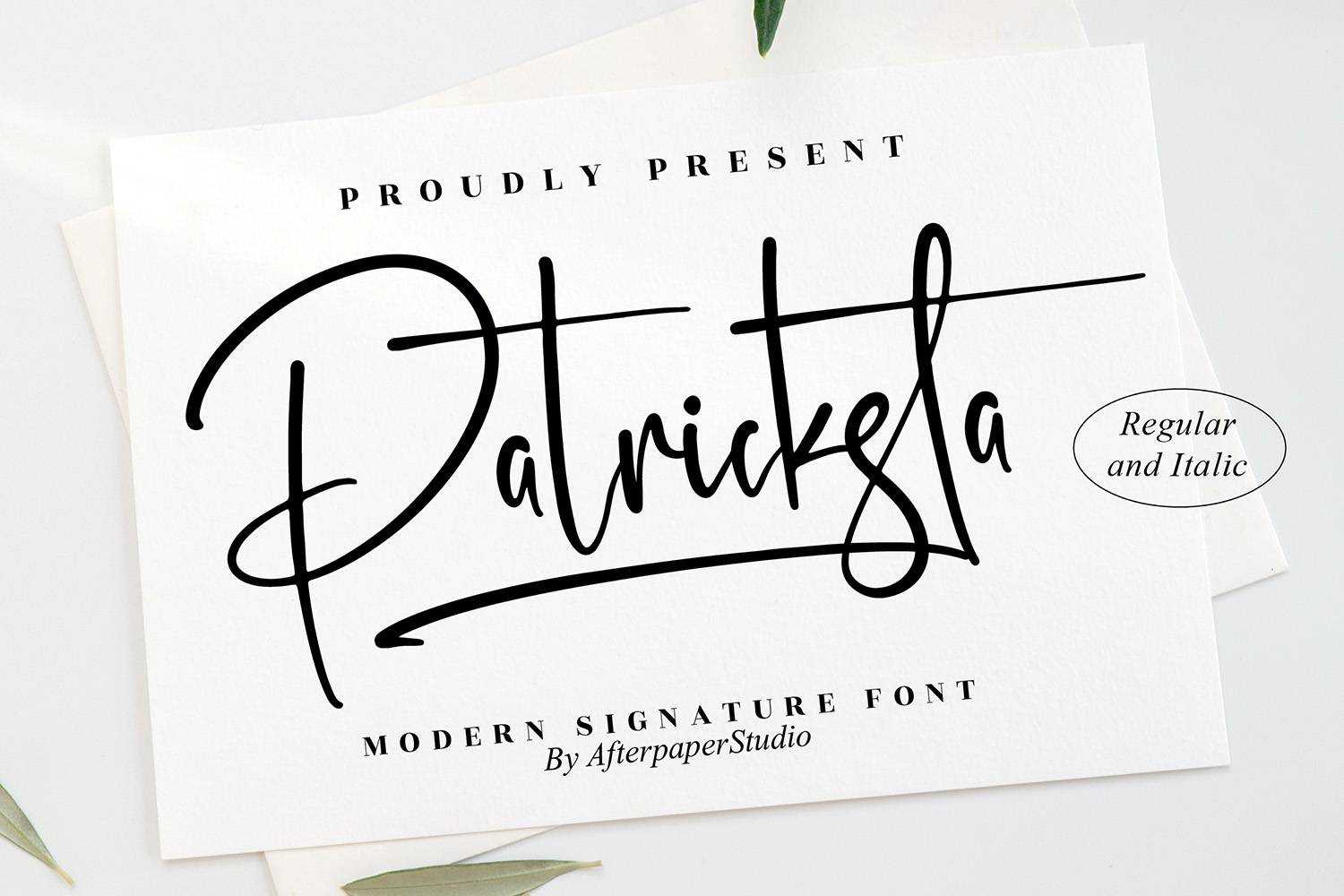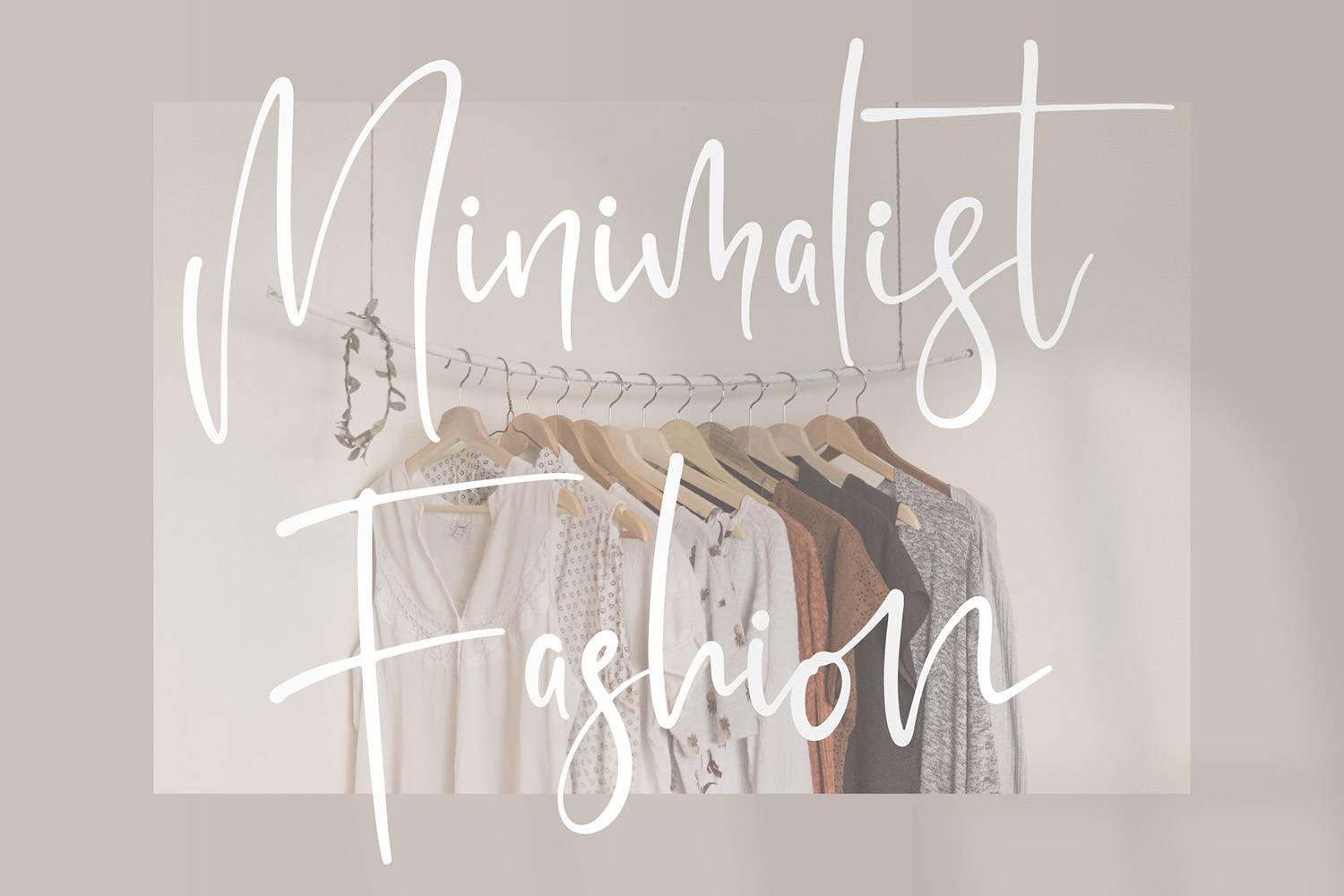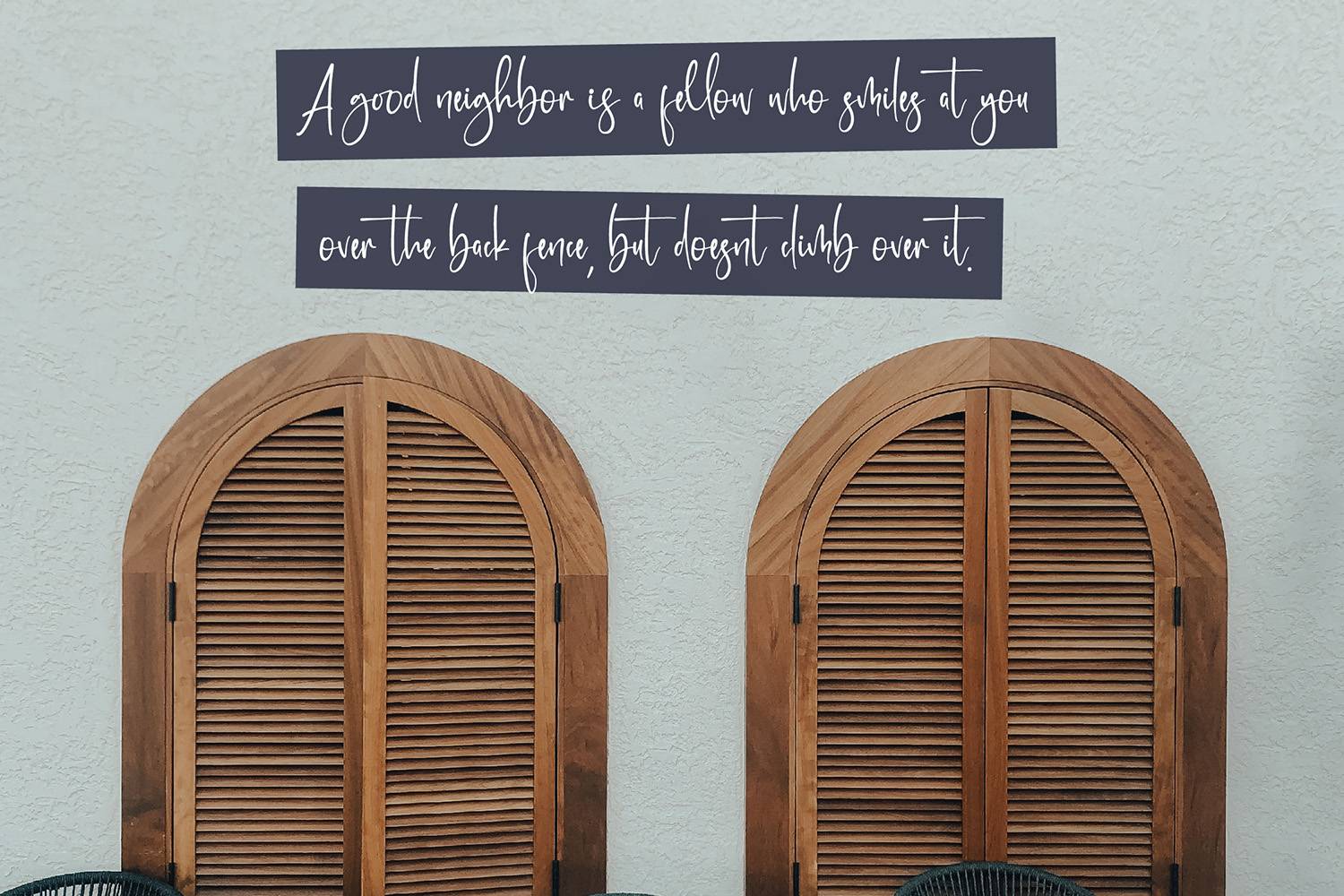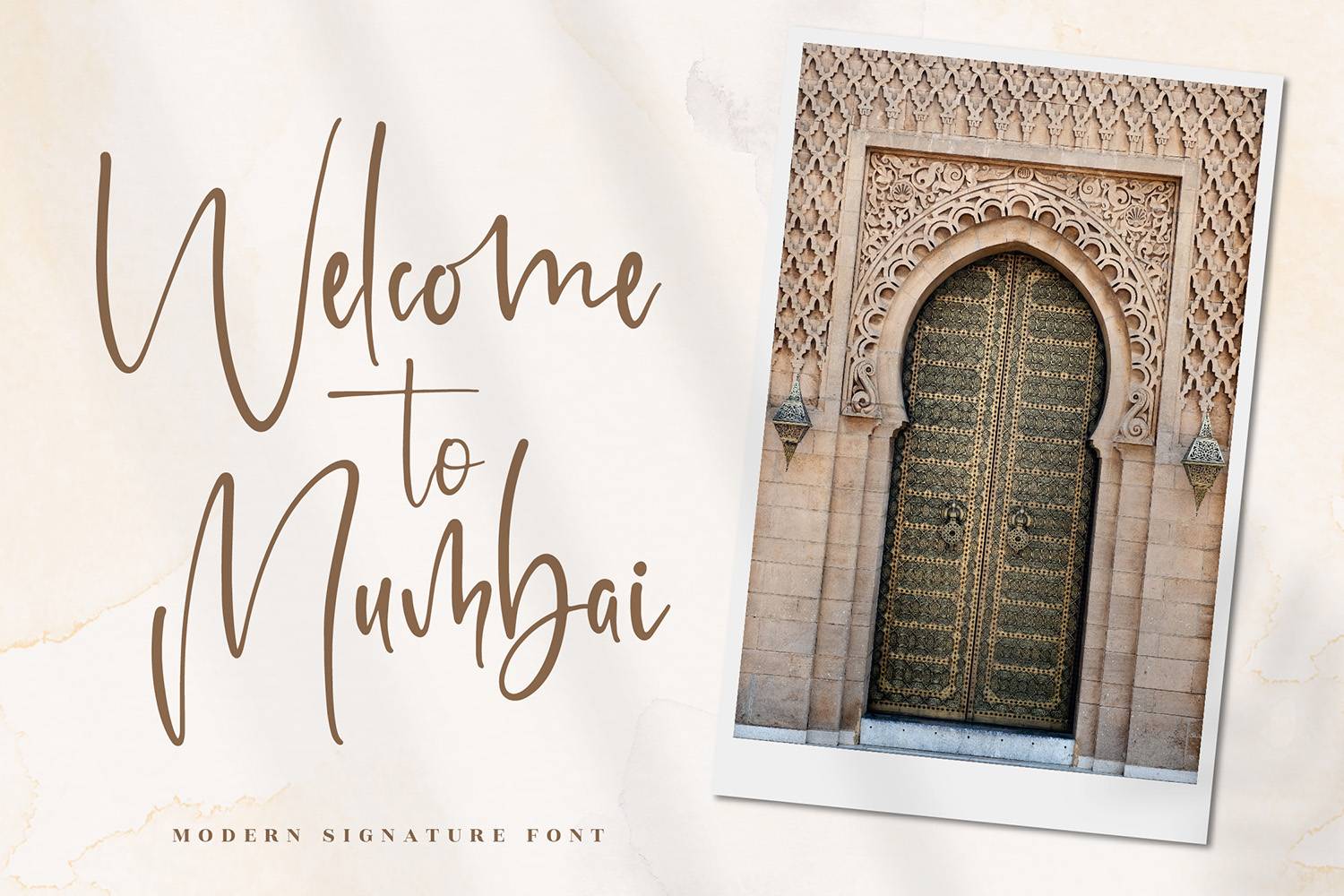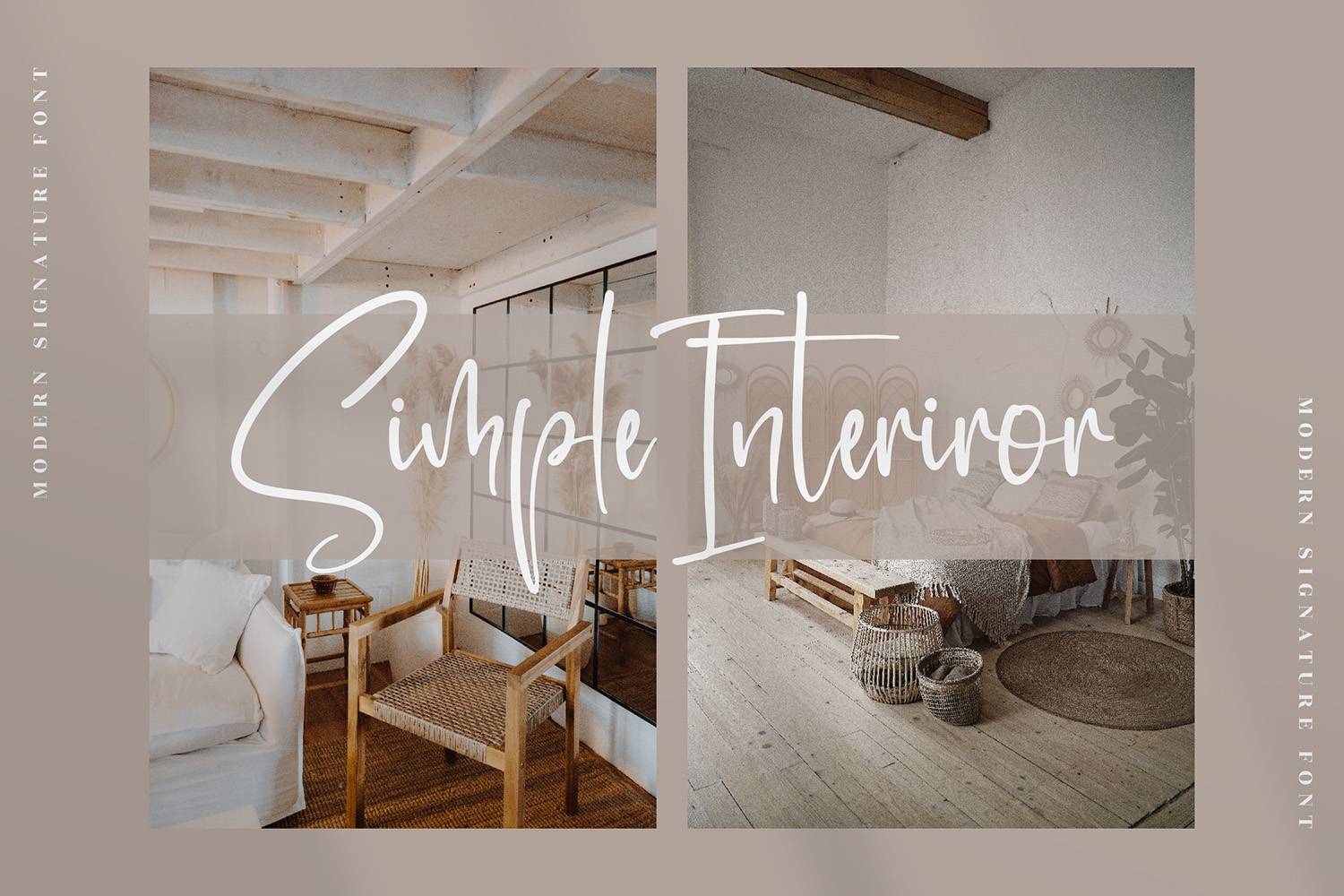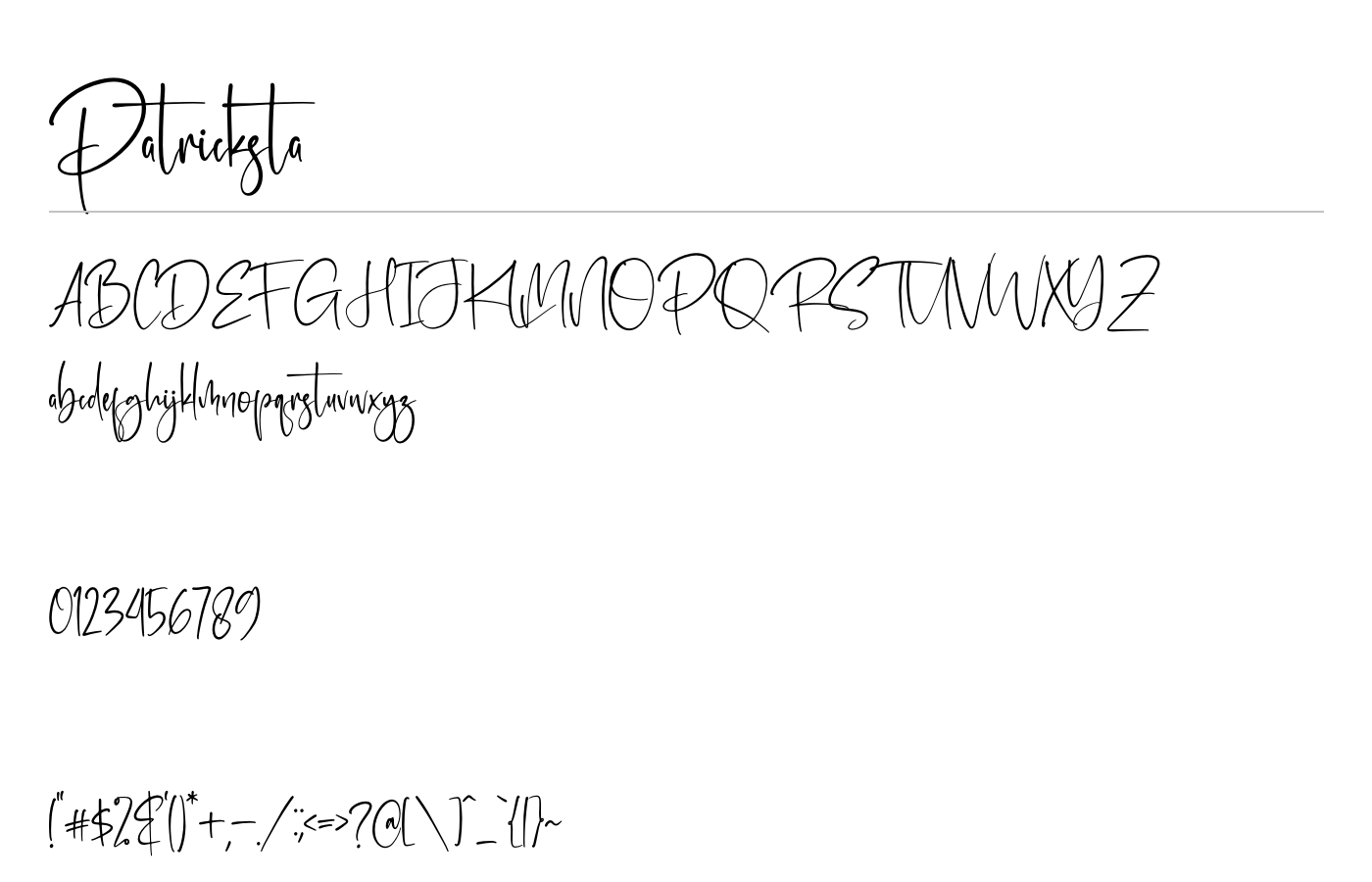
Patricksta is a delicate, handwritten script font with a tall, slender appearance and playful, flowing strokes. Its thin, elegant lines and casual charm make it ideal for creative, feminine branding, invitations, and artistic projects where a personal, stylish touch is desired. This font works well in logos, headlines, and decorative text, adding a modern yet whimsical feel to any design.
Patricksta Font
About Patricksta Font